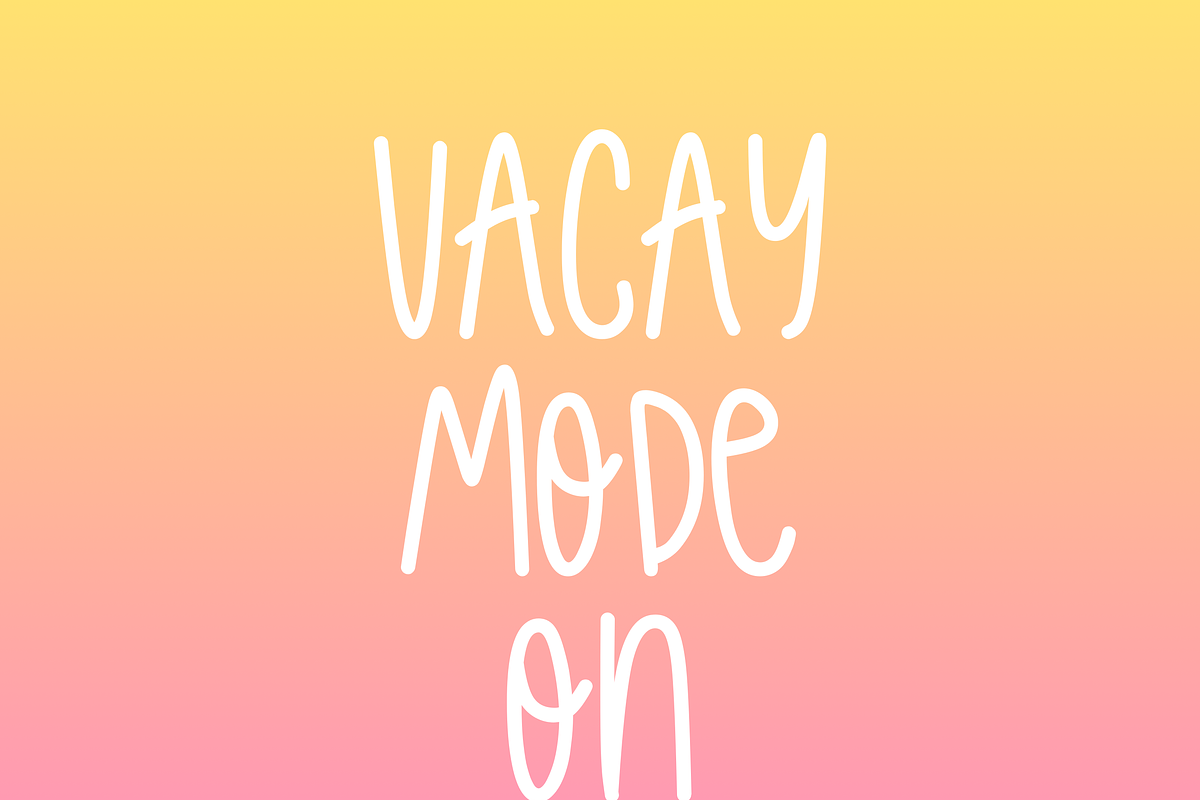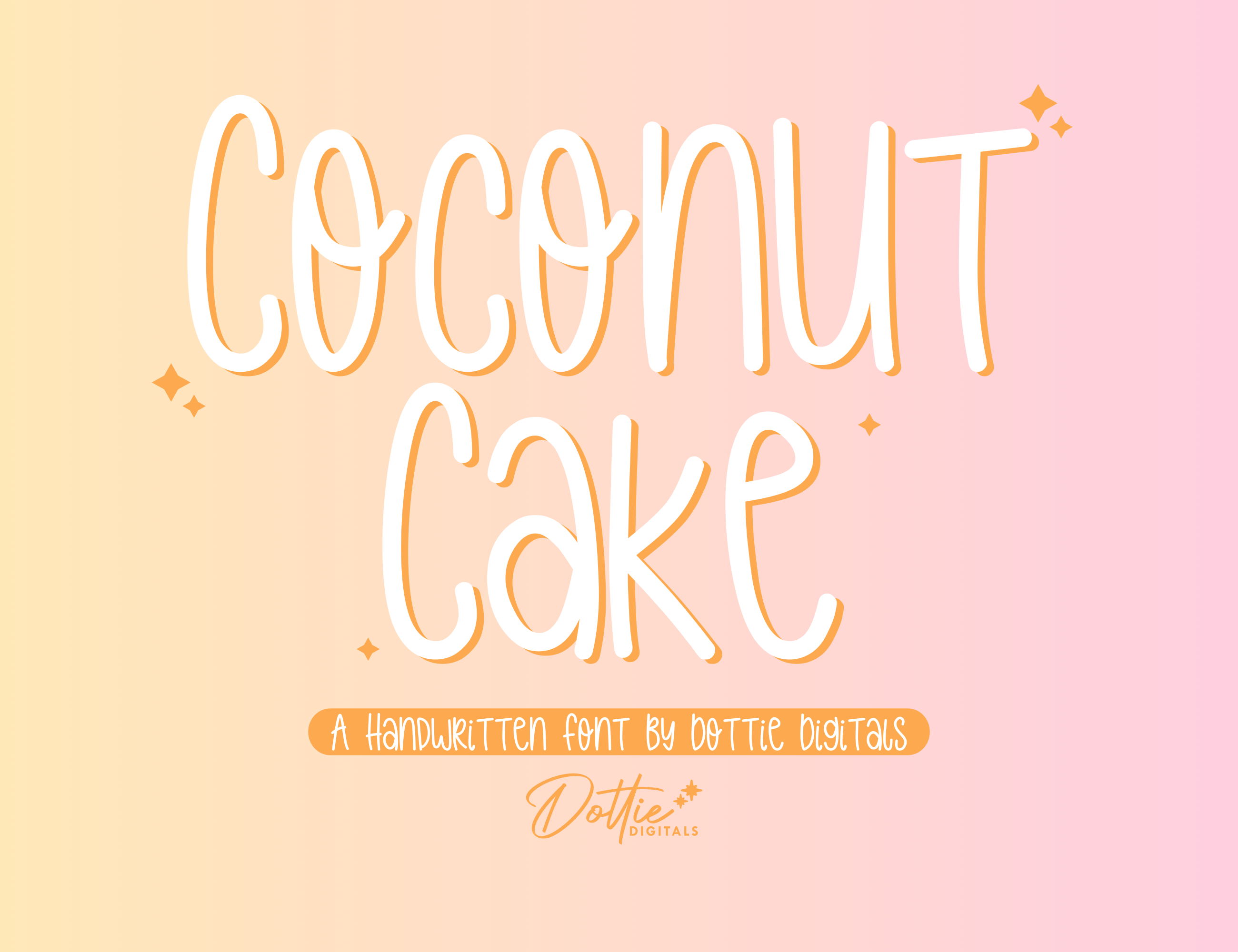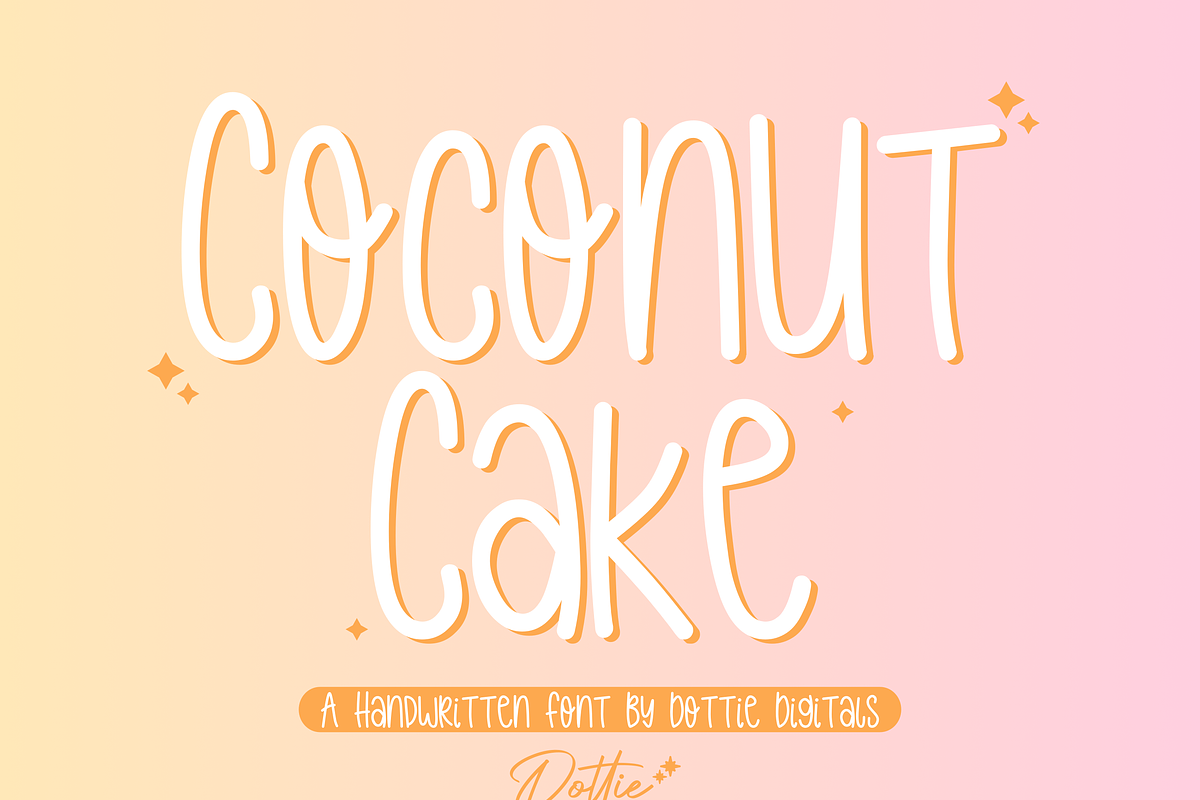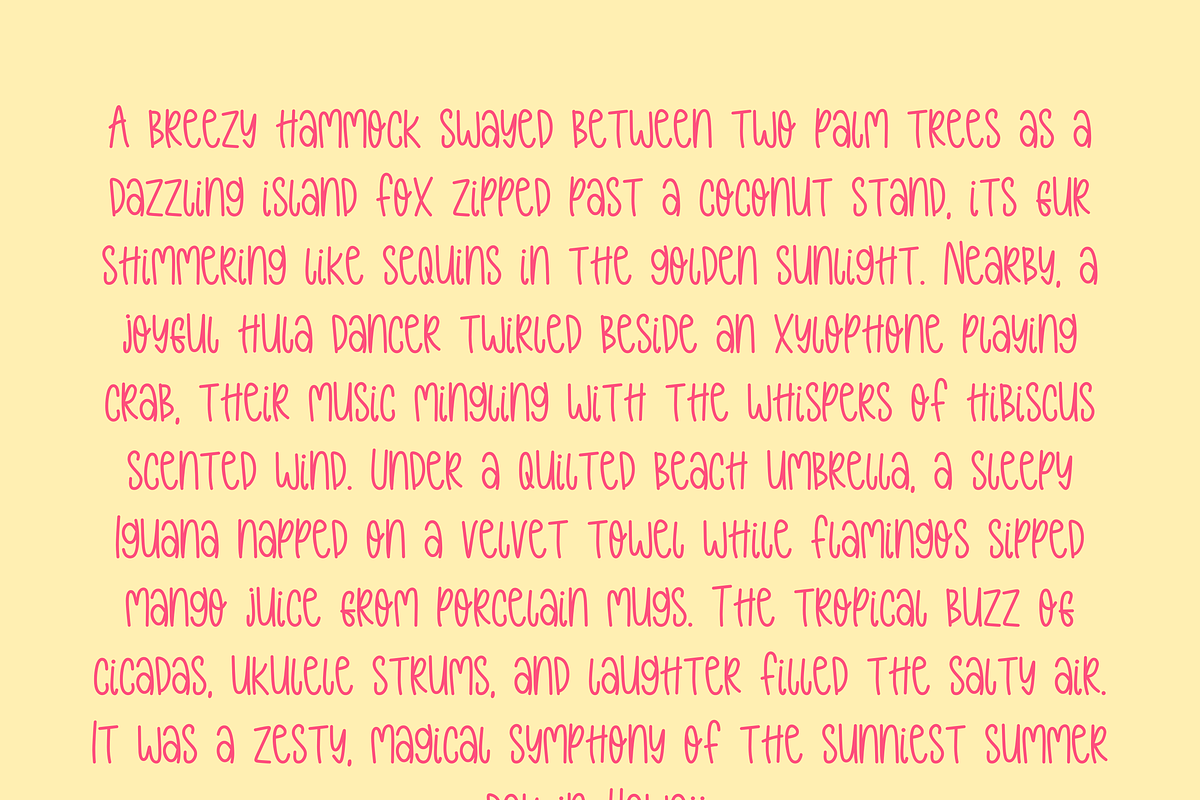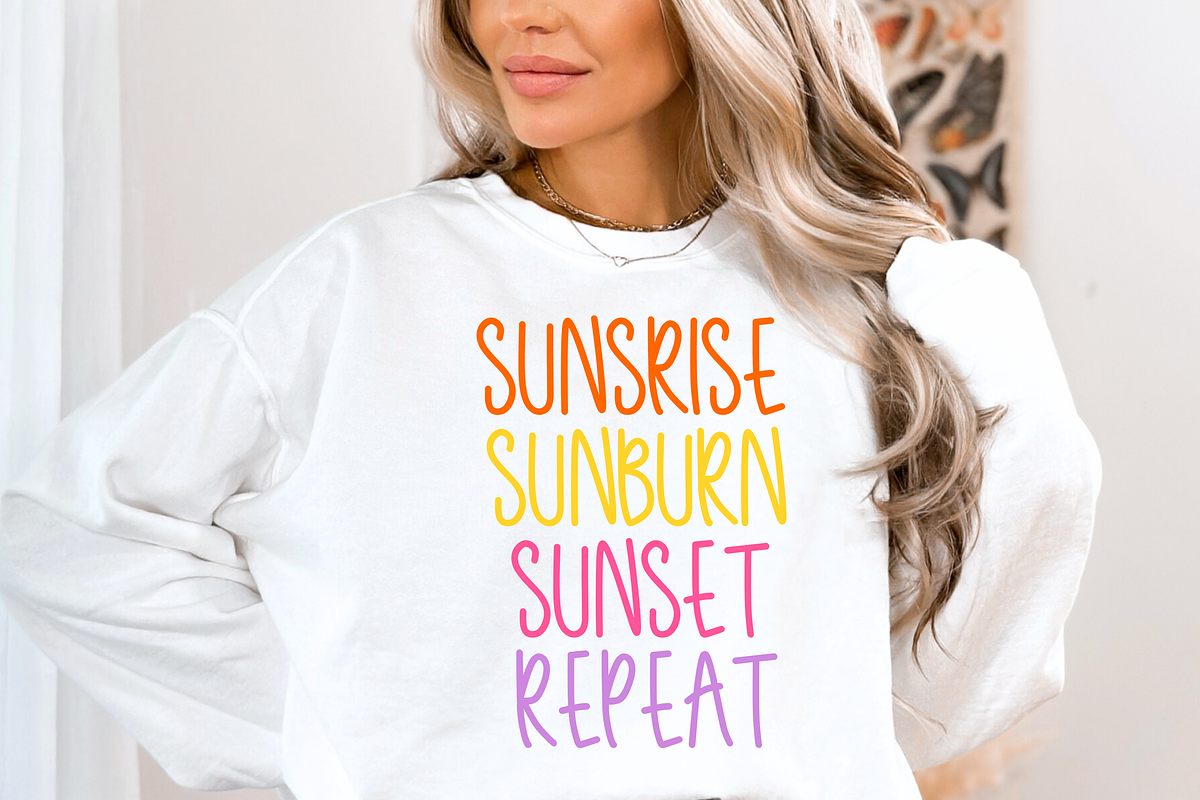
Coconut Cake Font – Handwritten Sans
Coconut Cake – Handwritten Sans-Serif Cricut & Canva Friendly Font | OTF & TTF & WOFF Included | Free Personal Use License Included This Dottie Digitals font is a versatile, high-quality typeface designed for creatives and crafters. Whether you’re making custom Cricut vinyl projects, designing in Canva, or editing in Adobe or Inkscape, this font is optimized for smooth, clean results across all platforms. What’s Included: